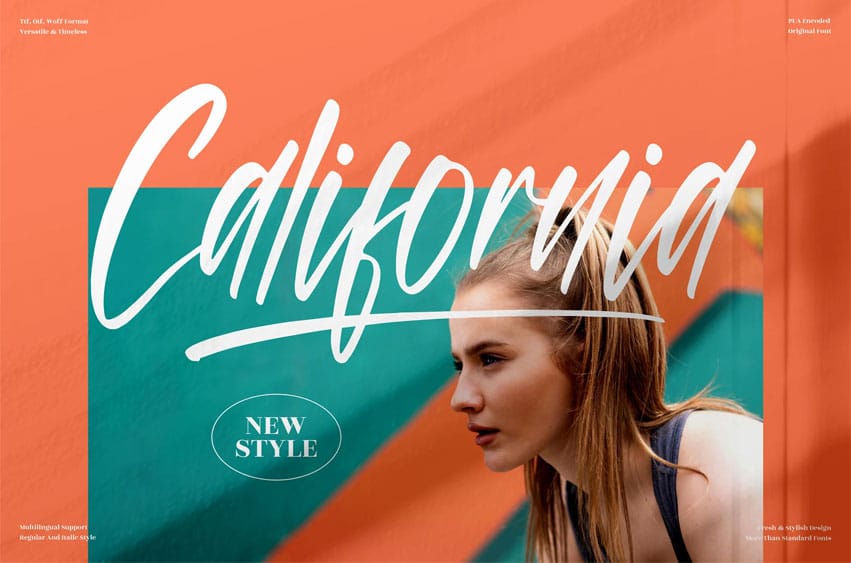
California Handwritten Font suitable to complement your digital and printed creative products.
This font is perfect for posters, social media posts, branding, personal projects, etc.